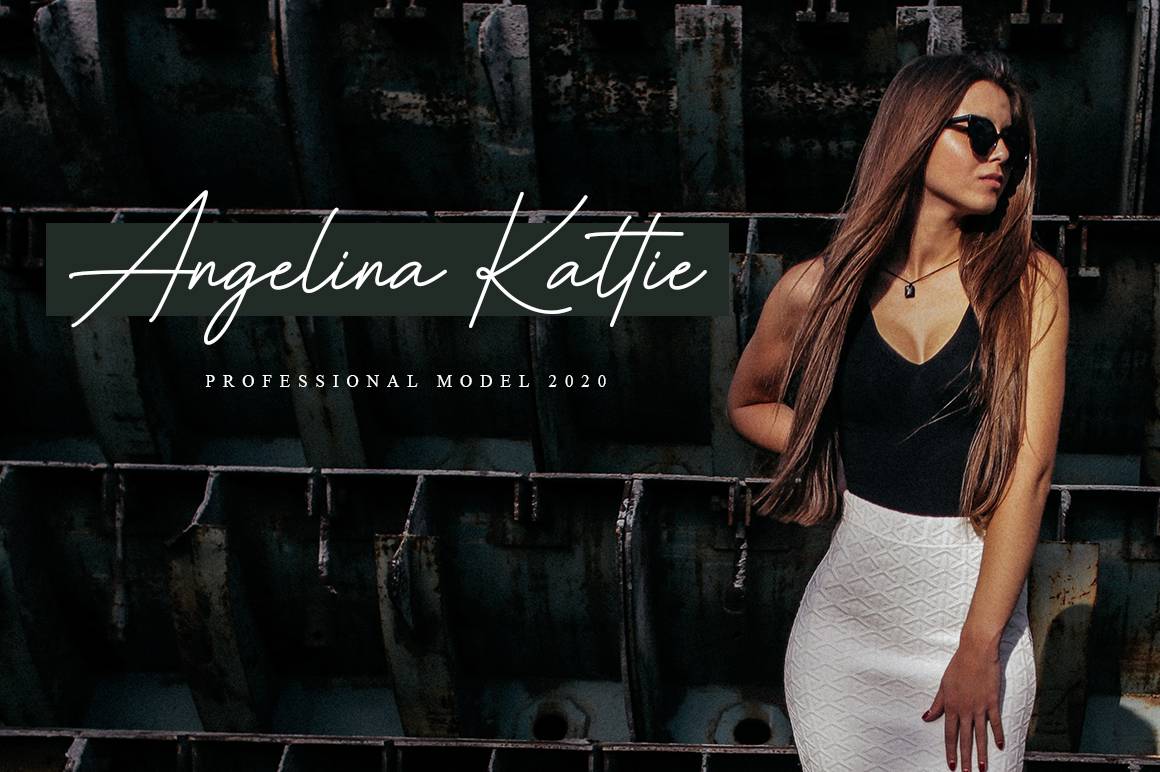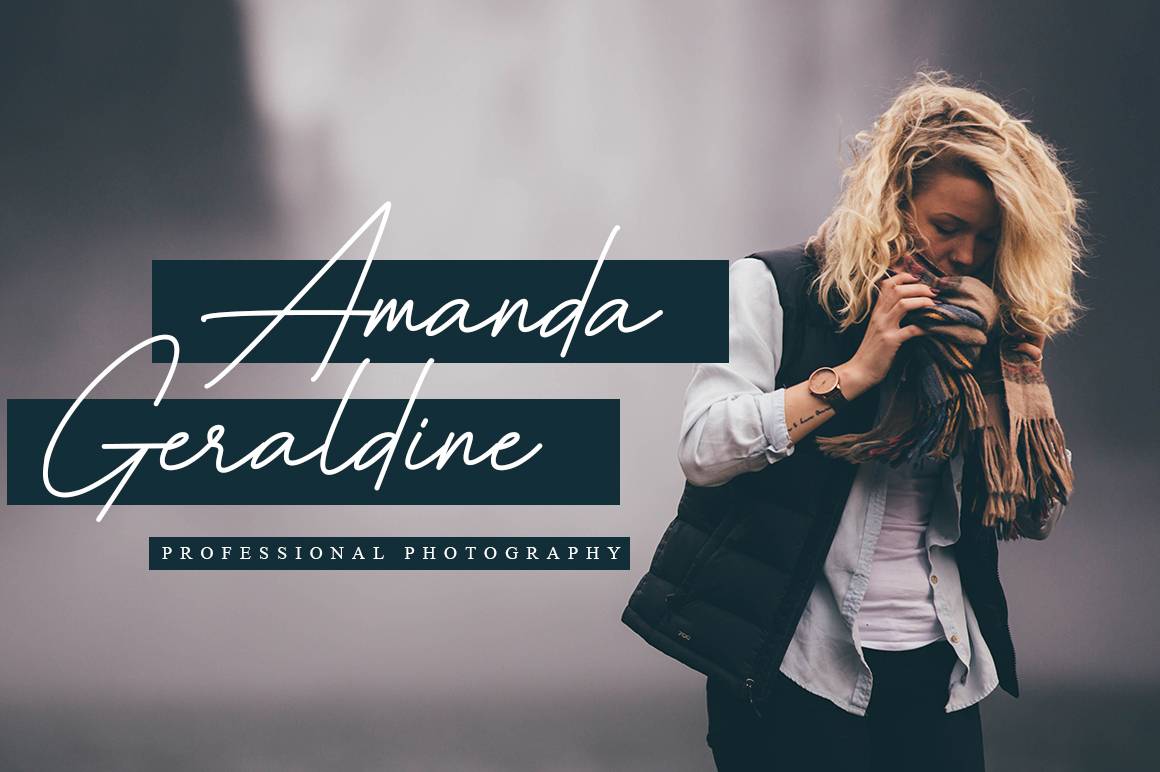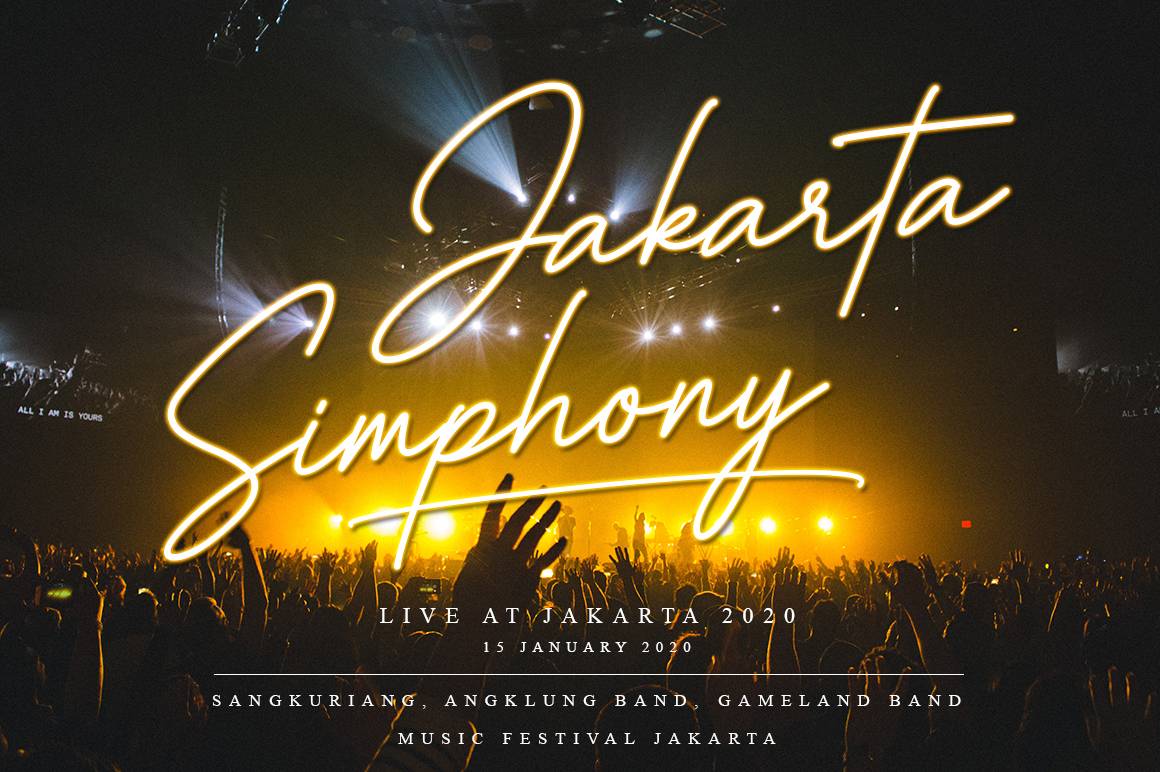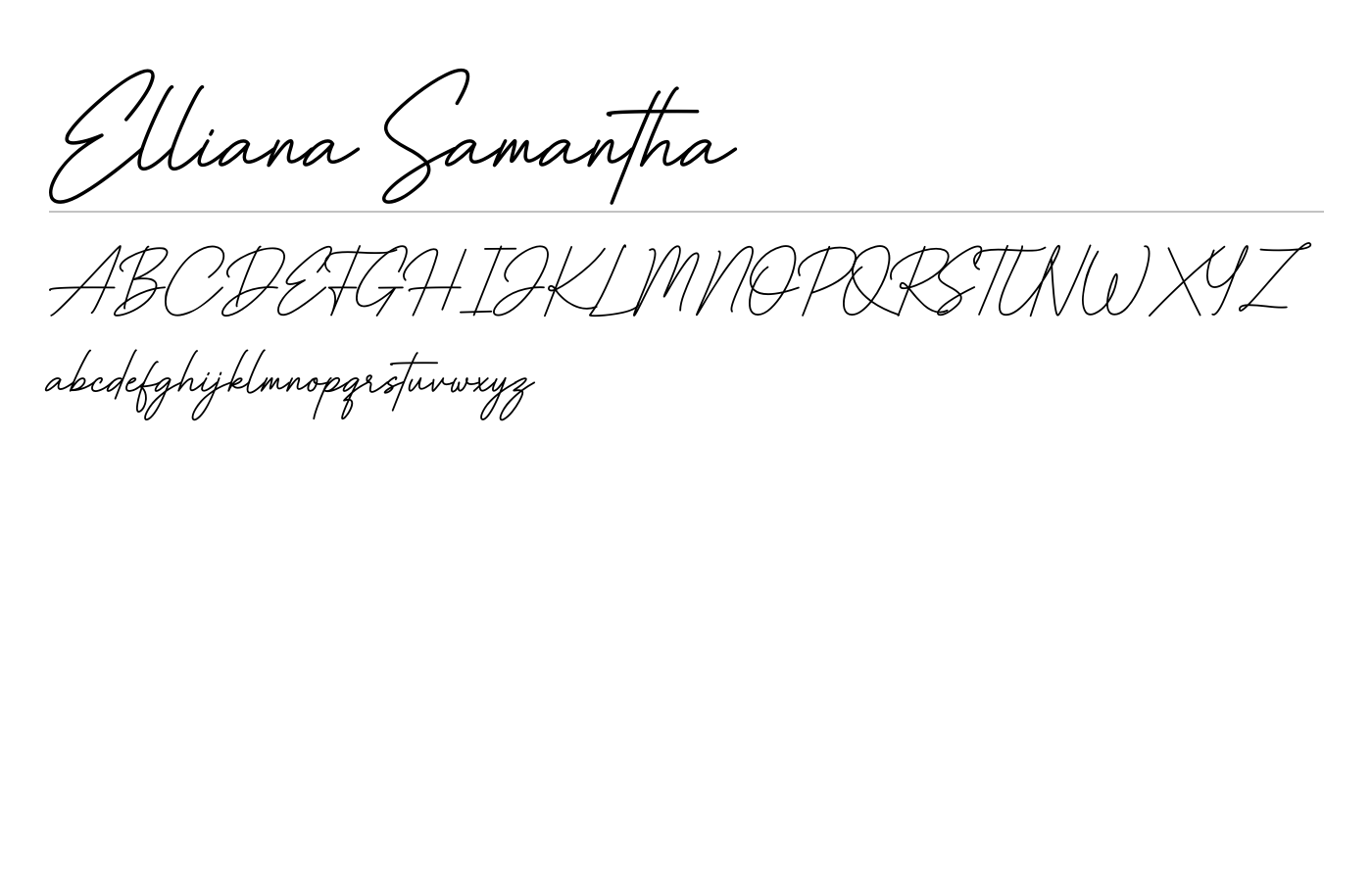
Elliana Samantha is a delicate and elegant script font with a light, flowing stroke that mimics natural handwriting. Its slender, slightly slanted letterforms create a sophisticated and personal feel, making it ideal for invitations, branding, and other projects that seek a refined, intimate touch. This font works beautifully for designs that want to convey elegance and warmth with a modern handwritten style.
Elliana Samantha Font
About Elliana Samantha Font
| Font family | Elliana Samantha Font |